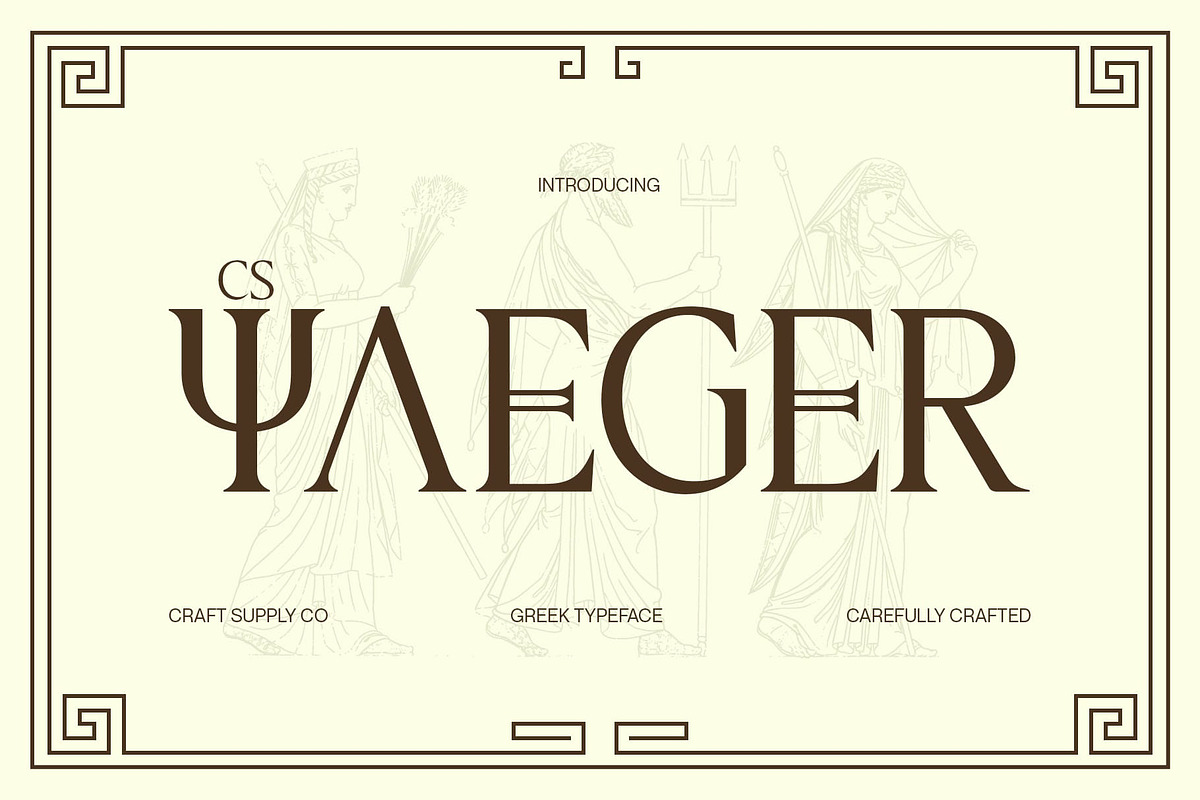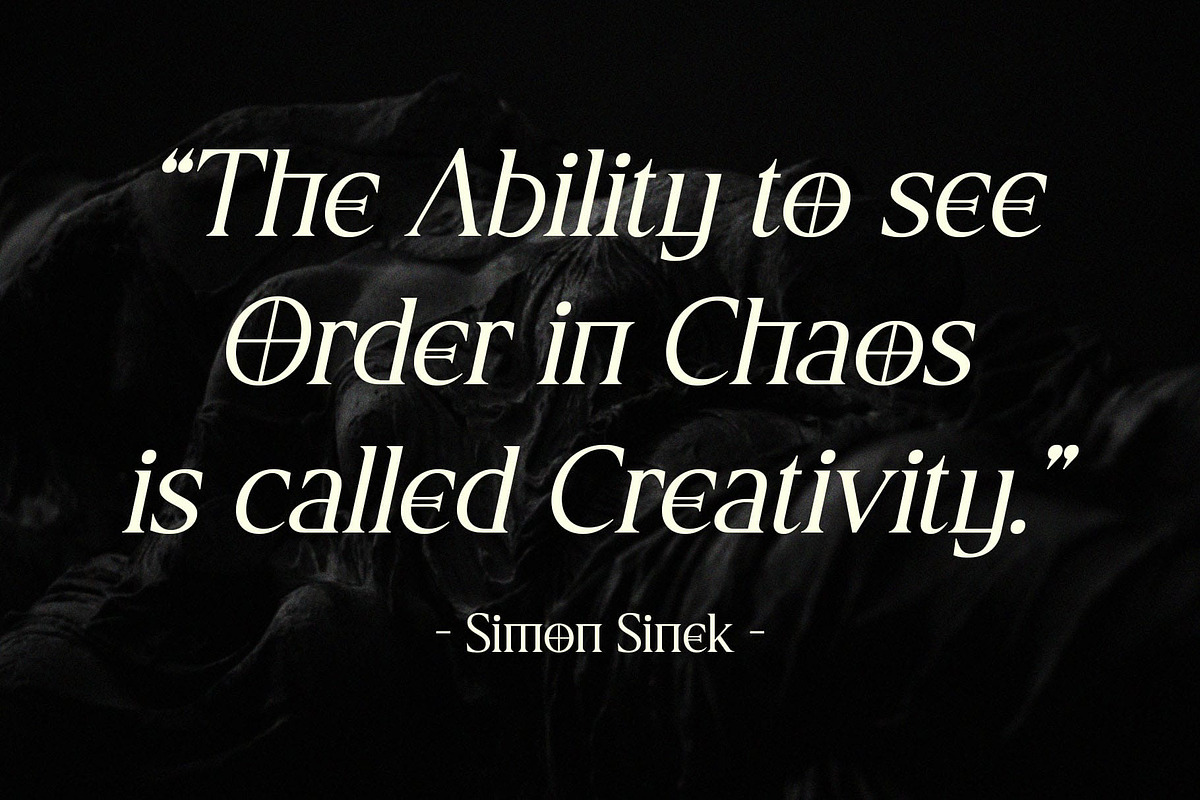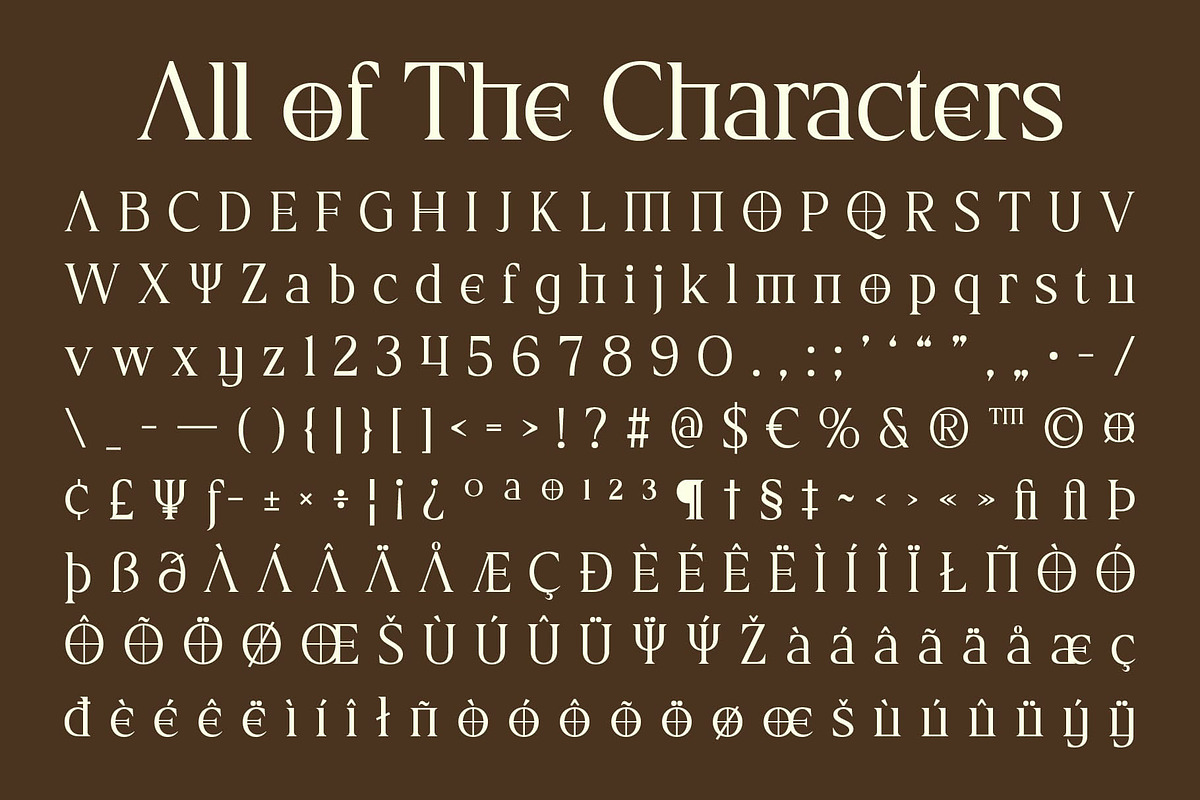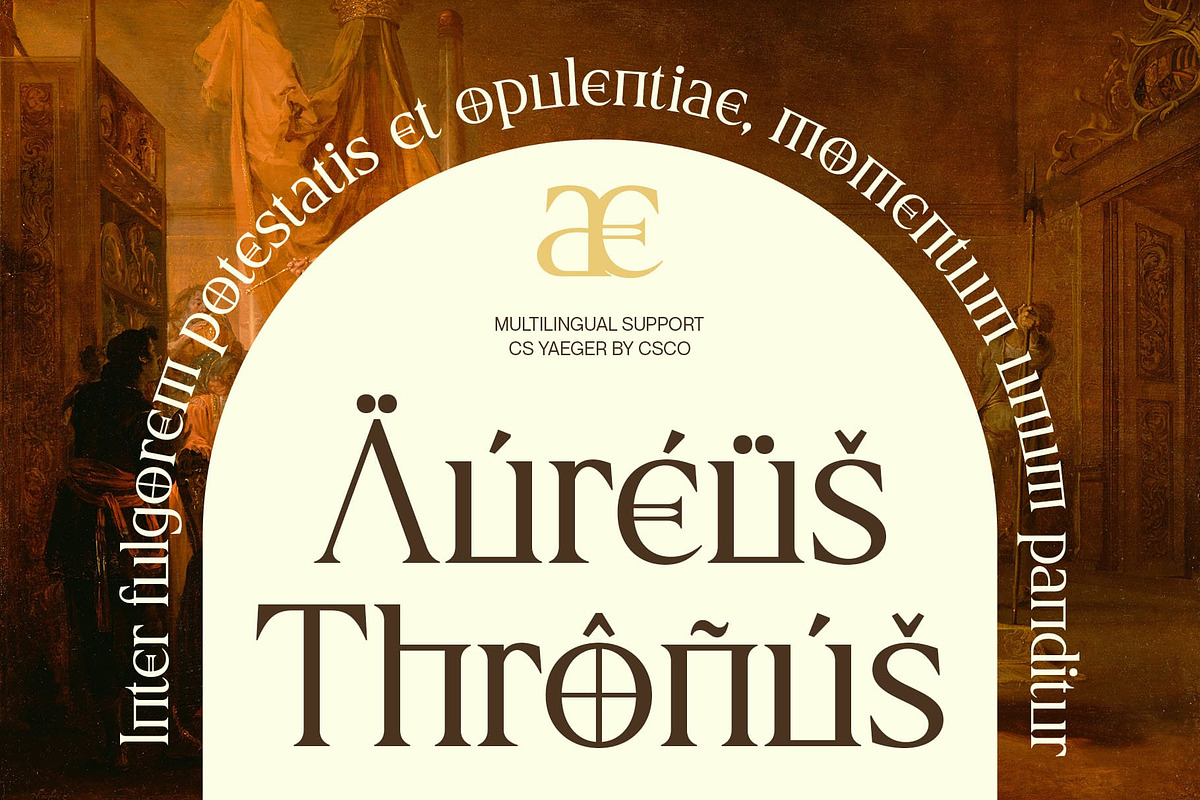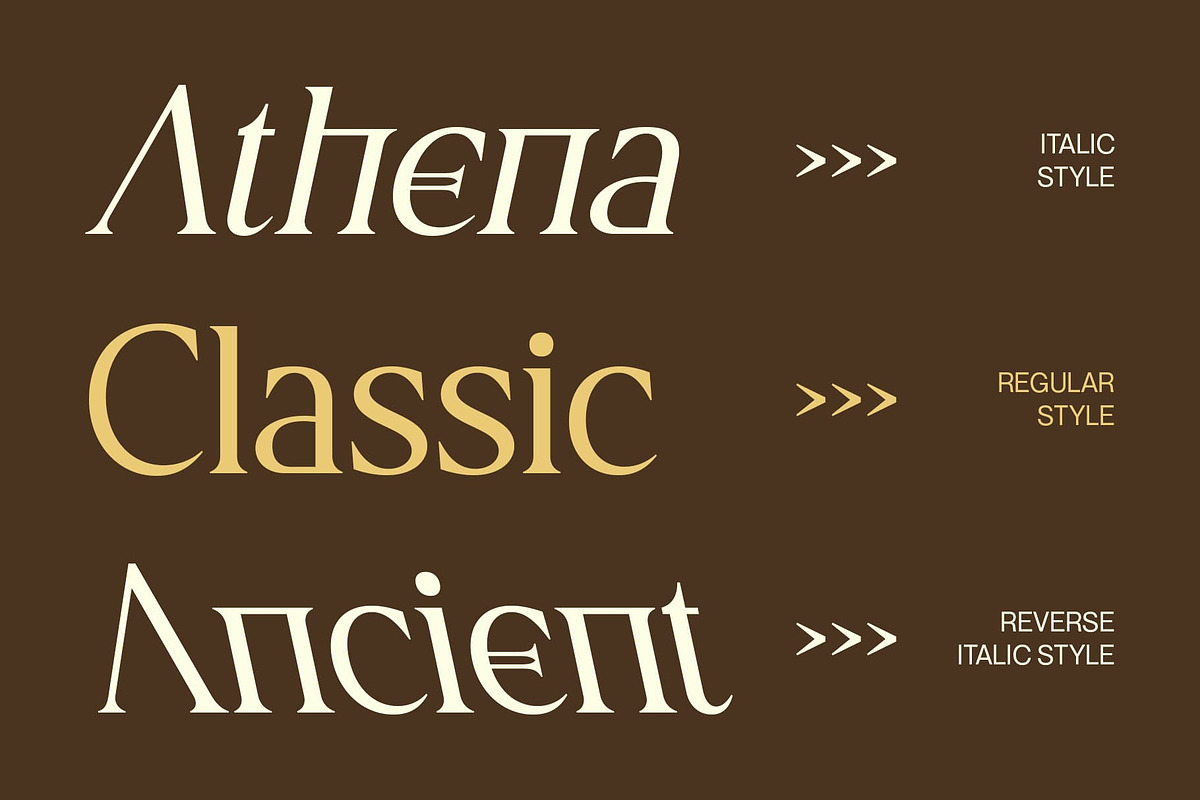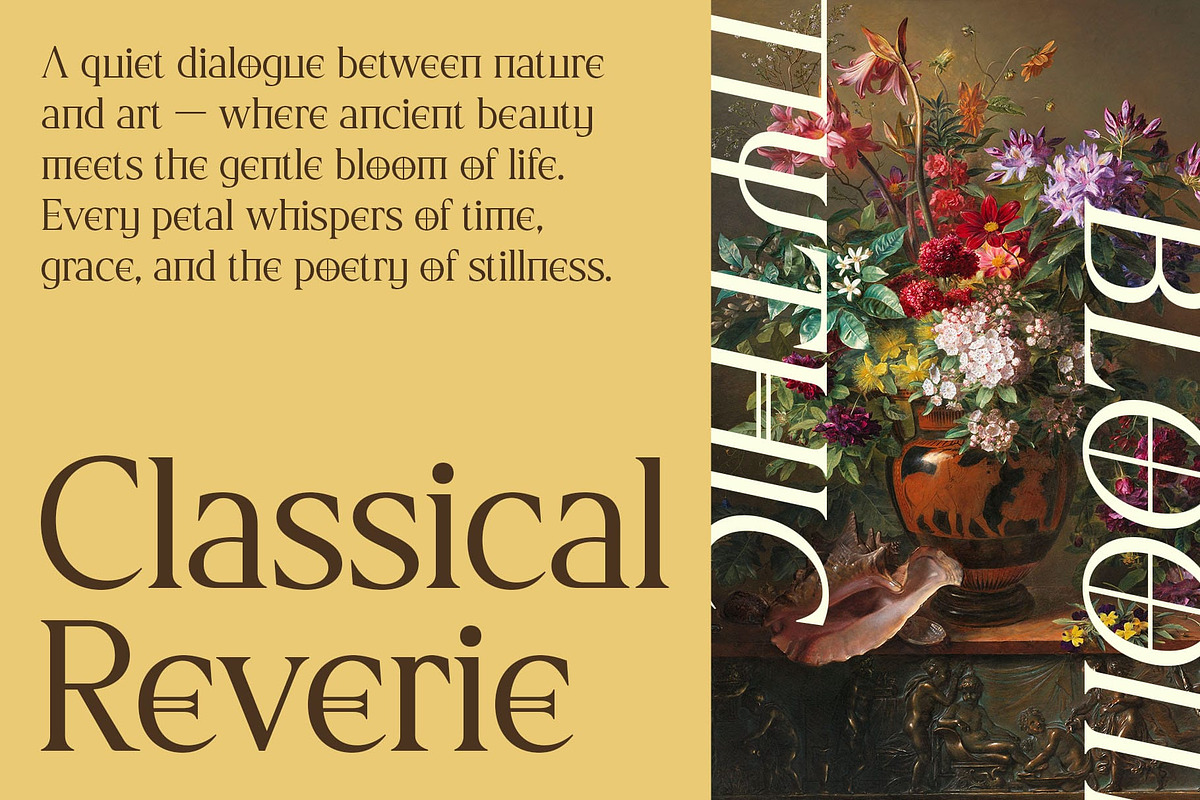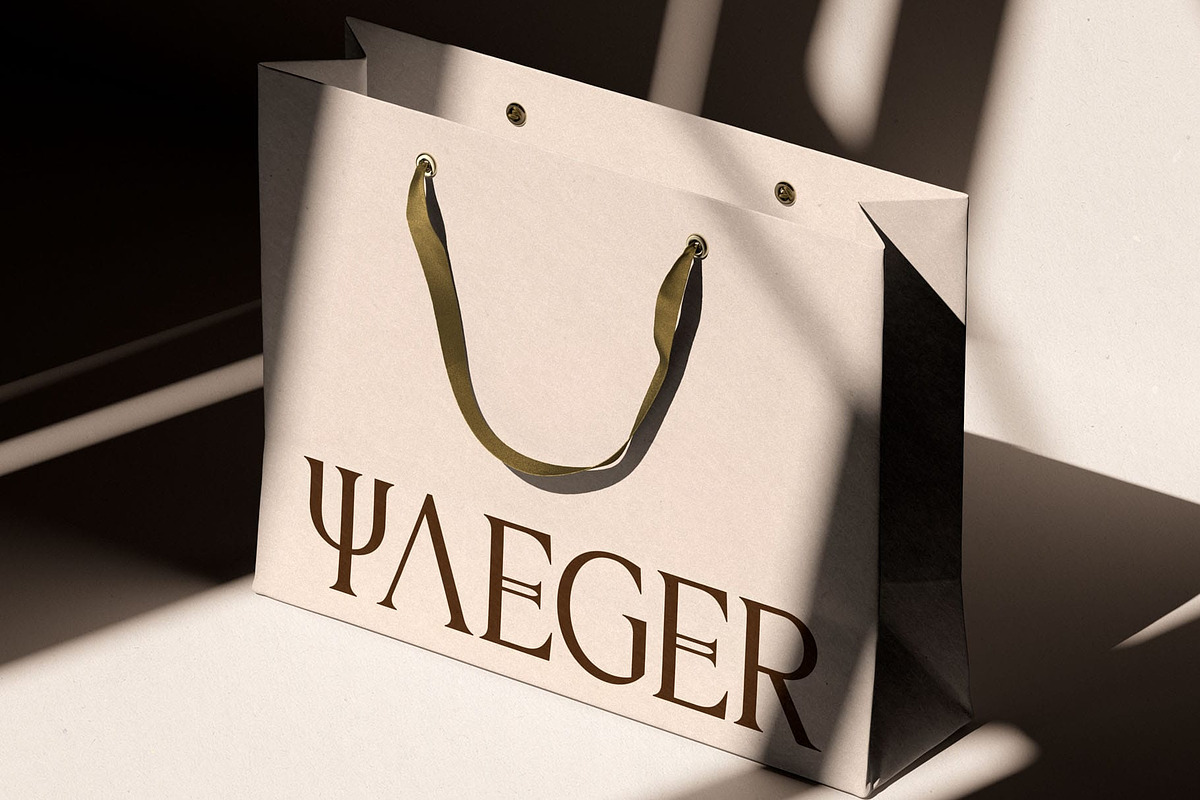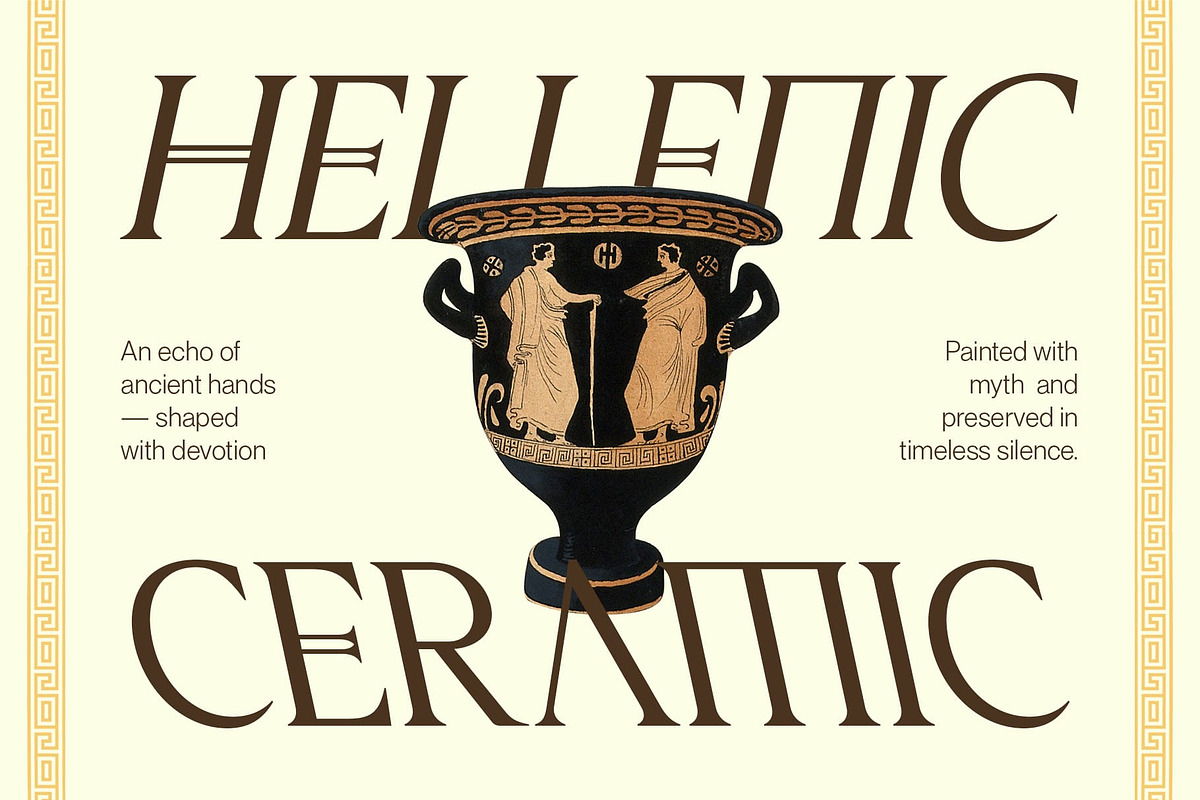
CS Yaeger – Ancient Greek Font
CS Yaeger – Classical Strength with Modern Refinement
Inspired by Ancient Greek Elegance This is an elegant serif display font inspired by the timeless beauty of ancient Greek letterforms. It captures the essence of historical grandeur through its strong serifs and sculptural shapes, while reimagining them for the modern era. Each letter carries a sense of heritage and balance, evoking both artistry and authority.
Classic Forms with Contemporary Clarity Blending traditional craftsmanship with modern precision, this font transforms the grandeur of Greek inscriptions into a clean and versatile display font. The sharp serifs and defined proportions create a distinctive aesthetic graceful yet bold, classical yet fresh. This harmony makes it ideal for projects seeking to express sophistication and strength.
Perfect for Elegant and Cultural Design This font shines in applications where timeless beauty and professional clarity are essential. From luxury branding and editorial titles to museum exhibitions and cultural projects, its refined elegance elevates every visual composition, leaving a memorable and dignified impression.
A Harmony of Heritage and Modernity More than just a font, this font represents a dialogue between history and innovation. It bridges the ancient and the contemporary through its balanced geometry and elegant rhythm perfect for designers aiming to convey tradition, intelligence, and refined creativity in every project.